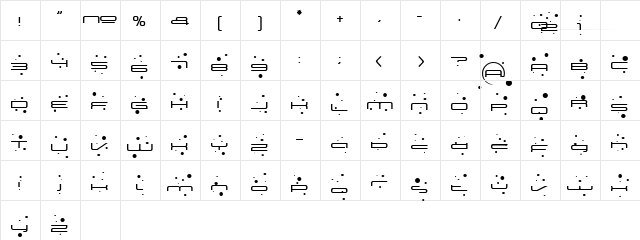
Neutronica outthere
Design Context for Neutronica Typeface
Neutronica is a composed and adaptable typeface that performs quietly and consistently across a wide range of design contexts.